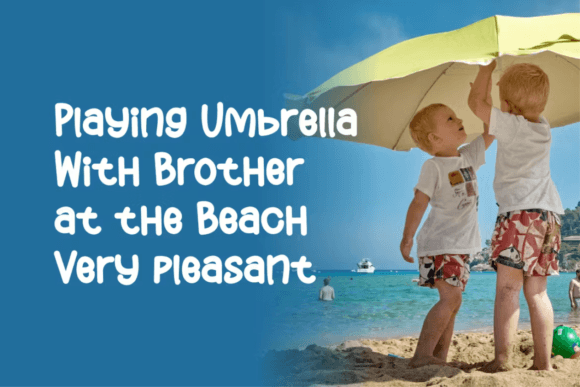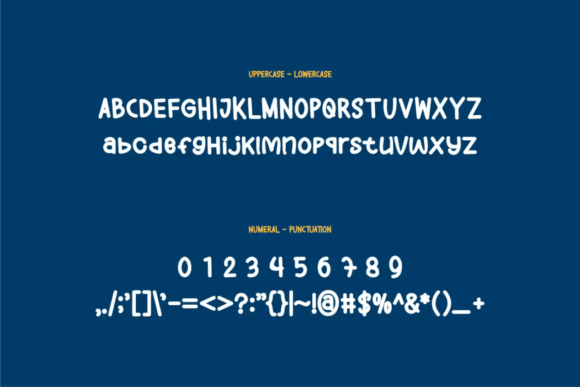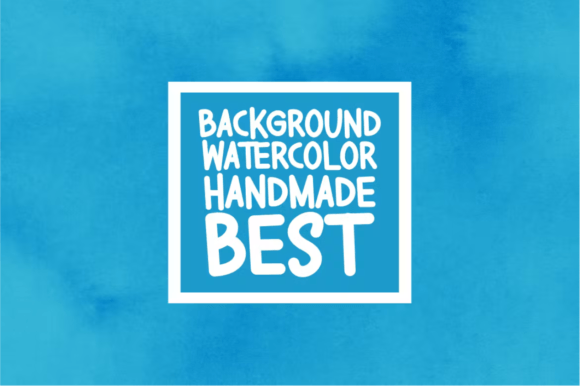
The Joy of Gerwalter Font: Adding a Personal Touch to Your Designs
I still remember the time I was working on a project to create a set of greeting cards for a friend’s birthday. I had all the graphics and illustrations ready, but I was stuck on finding the perfect font to add a personal touch. That’s when I stumbled upon Gerwalter Font, a cute and playful handwritten font that instantly caught my attention. In this article, I’ll share my experience with Gerwalter, its unique features, and how you can make the most of it in your designs.
An Honest Review of Gerwalter Font
What I Love About Gerwalter ✨
- ✅ Unique and friendly style that adds a warm and cheerful feel to any project
- ✅ Perfect for designs that require a personal touch, such as greeting cards, posters, and invitations
- ✅ Easy to read and understand, even in smaller font sizes
- ✅ Highly versatile and can be used for a wide range of design projects
- ⚠️ Limited availability of special characters and glyphs
- ⚠️ May not be suitable for formal or professional designs that require a more traditional font
Gerwalter Font comes with a range of OpenType features, glyphs, and stylistic alternates that can enhance your design. Here are a few tips on how to access and use them:
- Experiment with stylistic alternates to create a more unique and personalized look
The Backstory of Gerwalter Font
Gerwalter Font was designed by a talented type designer who wanted to create a font that would add a personal touch to designs. The font was inspired by traditional handwriting and aims to bring a warm and cheerful feel to any project.
Q: What is Gerwalter Font?
Gerwalter Font is a cute and playful handwritten font designed to add a personal touch to designs.
Q: What design projects is Gerwalter Font best suited for?
Gerwalter Font is perfect for designs that require a personal touch, such as greeting cards, posters, invitations, and other creative projects.